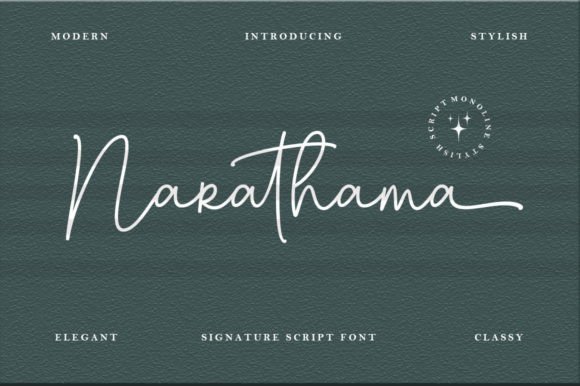
Embrace the Spirit of Christmas with Narathama Font: A Festive Delight for Your Creative Projects
Let the magic of Christmas and the charm of handwriting blend seamlessly with Narathama Font, a captivating script font that's the essence of festivity. Its flowing strokes and playful characters capture the warmth and wonder of Christmas, making it the perfect choice for adding a touch of yuletide cheer to any project.
Narathama's versatility is a creative wonderland, equally at home in branding, invitations, stationery, and wedding designs. Let your imagination soar as you craft stunning social media posts, advertisements, and product packaging that radiate Christmas spirit. Its ability to elevate design projects is truly magical.
This modern and feminine script font infuses your creations with a touch of elegance and sophistication. Whether you're designing labels for your handmade gifts or creating enchanting photography watermarks, Narathama adds a layer of festive charm that's sure to delight. Its applications are boundless, extending to special events, product designs, and anything where Christmas magic needs to shine.
Experience the Joy of Christmas with Narathama's Creative Versatility
Narathama's versatility is a creative wonderland, equally at home in branding, invitations, stationery, and wedding designs. Let your imagination soar as you craft stunning social media posts, advertisements, and product packaging that radiate Christmas spirit. Its ability to elevate design projects is truly magical.
Narathama is the ultimate Christmas companion for designers and creative professionals. Embrace the holiday spirit, indulge in its charm, and let your imagination run wild.